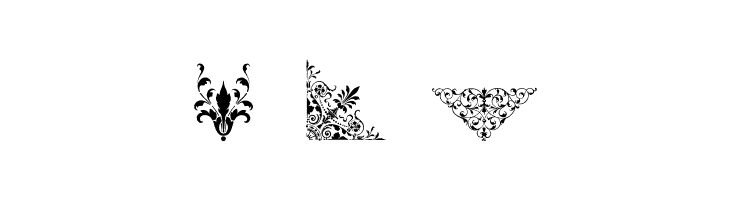
A collection of bold, intricate Mexican-inspired ornamental designs.
A whimsical set of stick figures with diverse eye designs as heads.
A bold, fragmented font with a modern, geometric style.
Ornate decorative dingbat font with vintage motifs and whimsical illustrations.
Ornamental font made of decorative border and divider elements.
A bold, geometric font with a fragmented, abstract style.
Highly decorative and abstract symbol set with geometric and illustrative motifs.
Ornamental dingbat font with floral and geometric motifs.
Highly detailed floral and botanical dingbat illustrations.
A diverse set of ornamental and symbolic pictograms in bold black silhouettes.
Art Nouveau-inspired ornamental designs with floral and geometric motifs.
An ornamental and decorative font with intricate designs in each letter.
A decorative, ornamental font with intricate designs and historical elegance.
An ornate and decorative font with intricate designs and embellishments.
A decorative font with ornate, vintage-style initials.
Ornate and decorative initials with intricate floral designs.
An ornamental and highly decorative font with intricate designs.
An ornate, decorative font with intricate floral embellishments, reminiscent of medieval manuscripts.
Intricate ornamental dingbats with floral and classical motifs.
Highly decorative ornamental motifs for embellishment.
Elaborate ornamental corner designs with a vintage decorative flair.
Illustrative, fashion-themed decorative display font featuring women in various poses.
The image contains decorative elements, not a valid font.
A decorative font with ornate and celestial-themed glyphs.
A decorative font with illustrations depicting apartment life elements.
Ornate Victorian-inspired ornamental glyphs.